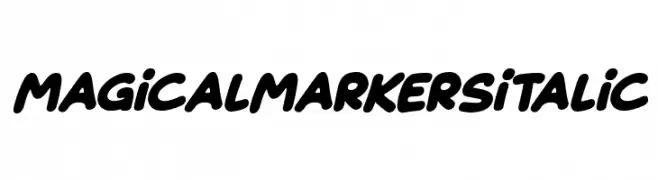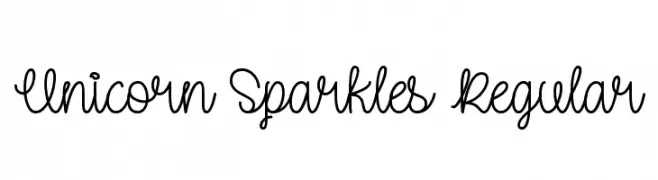
( Misti's Fonts - mistifonts.com/ )
A whimsical, handwritten script font with playful, flowing characters.
( Misti's Fonts - mistifonts.com/ )
A whimsical, handwritten script font with playful, flowing characters.
( Nasir Udin - creativemarket.com/vectro?u=vectro )
A bold, fluid handwritten font with dynamic strokes and a lively slant.
( Neogrey Creative - www.neogrey.com )
A futuristic, geometric font with bold weight and clean lines.
( Roger White - web.archive.org/web/20120416090521/www.rogersfonts.org.uk/ )
A bold, italic serif font with a classic and elegant style.
( Roger White - web.archive.org/web/20120416090521/www.rogersfonts.org.uk/ )
A classic serif font with elegant strokes and refined proportions.
( Roger White - web.archive.org/web/20120416090521/www.rogersfonts.org.uk/ )
A bold, classic serif font with strong strokes and pronounced serifs.
( Roger White - web.archive.org/web/20120416090521/www.rogersfonts.org.uk/ )
An elegant italic serif font with smooth curves and a refined, classic style.
A bold, vintage-inspired serif font with strong vertical lines and block-like serifs.